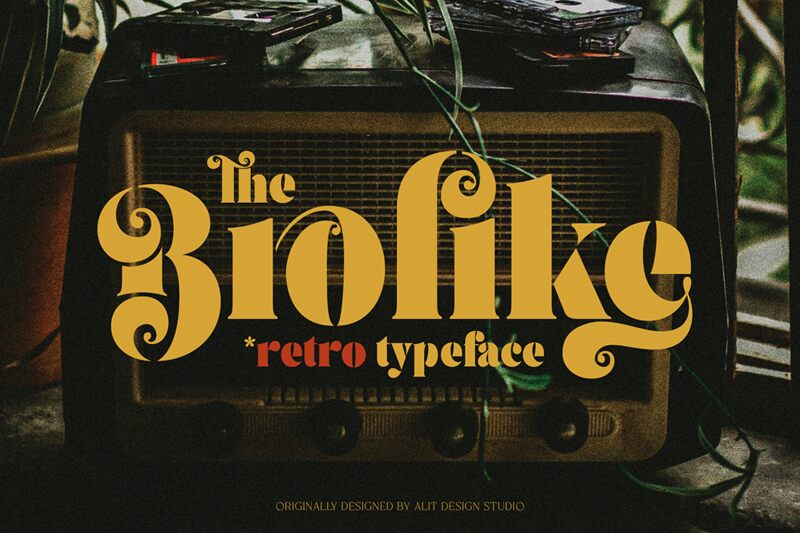
Brolike, crafted by Alit Design, is a retro display font that radiates confidence with its bold stance. The typeface invites a nostalgic journey through its vintage contours, exuding charm and personality. Its robust letters command attention, making it an ideal choice for headlines or branding that aims to make a strong statement.
The aesthetic allure of Brolike lies in its ability to blend the old-school appeal with modern design sensibilities. This font finds itself at home in contexts that require a touch of the past without sacrificing impact-think thematic posters, stylish packaging, and expressive logos where character and distinctiveness are paramount. Brolike's assertive presence ensures it stands out in any creative endeavor seeking to capture the essence of retro elegance combined with contemporary boldness.